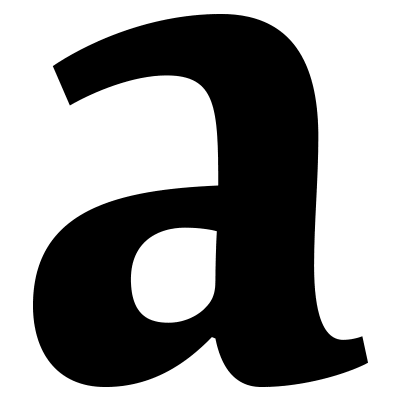
One part of a bicameral script with usually more ascenders and descenders.
Dutch: onderkast
French: Bas-de-casse
German: Kleinbuchstaben
Italian: minuscolo
Spanish: Minúscula, caja baja
Related Term(s): Uppercase (caps)